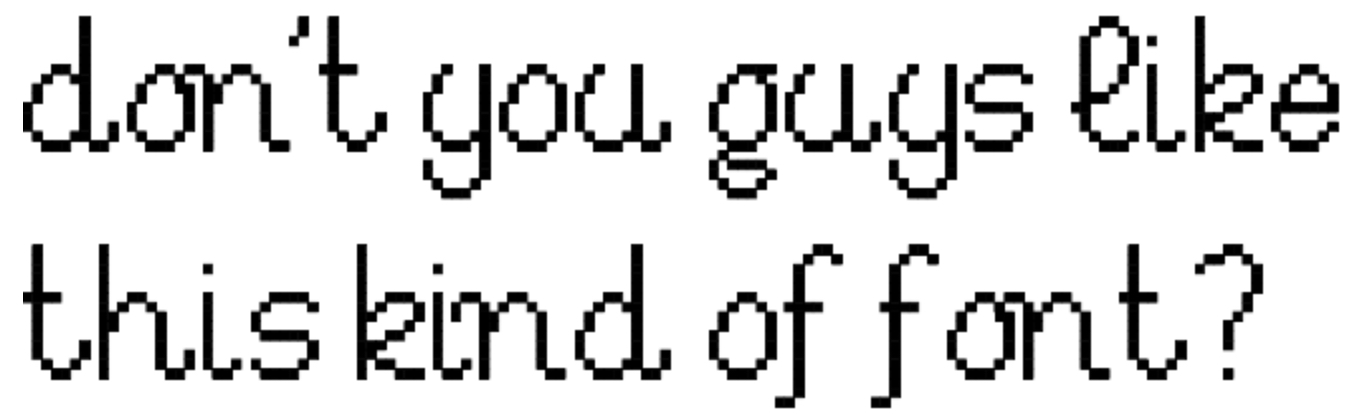
• a handwriting-based font thats only lowercase and its wip I swear I won’t stop working on it this time
Done parts:
Basic Latin plus Dek and El
really, do you?
i dont